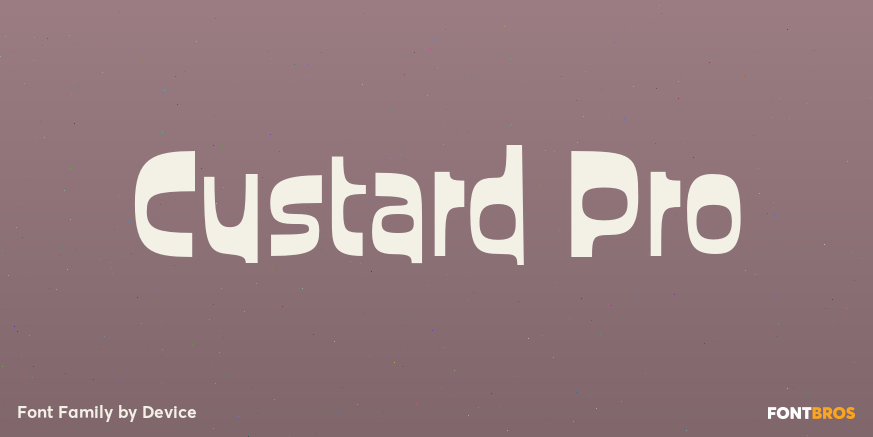
Custard Pro
About Custard Pro
Playful and funky. The ideal choice for candy wrapping, teen magazines, toy packaging and the like. The reweighted condensed is useful where space is at a premium, and mixing the two weights freely leads to intriguing results. Use with bright fresh…